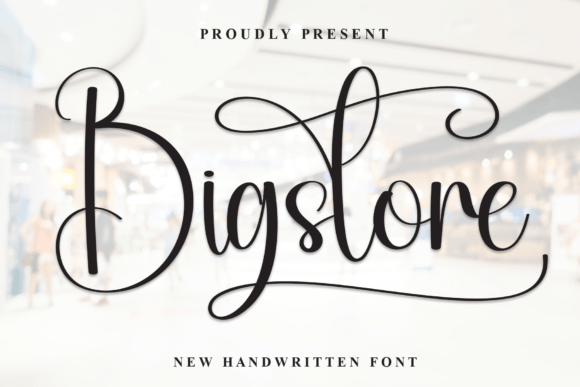
The Bigstore Font: Elevate Your Designs with Elegance and Personality
I’ll never forget the time I was working on a high-end wedding invitation project, and my client asked me to create a custom font that exuded luxury and sophistication. I spent hours scouring the internet for the perfect font, but nothing seemed quite right. That’s when I stumbled upon Bigstore, a modern and charming handwritten font that instantly caught my eye. Its elegant, flowing strokes and refined character made it the perfect fit for my project, and I’ve been obsessed with it ever since.
An Honest Review of Bigstore Font
- 💫 Elegant and refined handwritten style that’s perfect for upscale designs
- ✅ Wide range of OpenType features, including glyphs and stylistic alternates
- 🎨 Highly versatile and can be used for invitations, branding, editorial designs, and more
- 🌈 Beautifully crafted to add a touch of warmth and personality to any project
While Bigstore is an amazing font, there are a few things to keep in mind:
- 🤔 Some users may find the font a bit too ornate for certain projects, such as body text or captions
- ⚠️ The font may not be suitable for very small font sizes, as some details may get lost
The Story Behind Bigstore Font
Bigstore was designed by a talented typographer who wanted to create a font that exuded elegance and personality. Inspired by classic handwritten scripts, Bigstore combines traditional techniques with modern flair to create a truly unique font. Whether you’re a designer, crafty hobbyist, or creative entrepreneur, Bigstore is the perfect addition to your font collection.
Q: What type of projects is Bigstore suitable for?
A: Bigstore is perfect for upscale invitations, personal branding, editorial designs, and any project that requires a touch of elegance and personality.
Q: Does Bigstore support OpenType features?
A: Yes, Bigstore supports a wide range of OpenType features, including glyphs, stylistic alternates, and more.